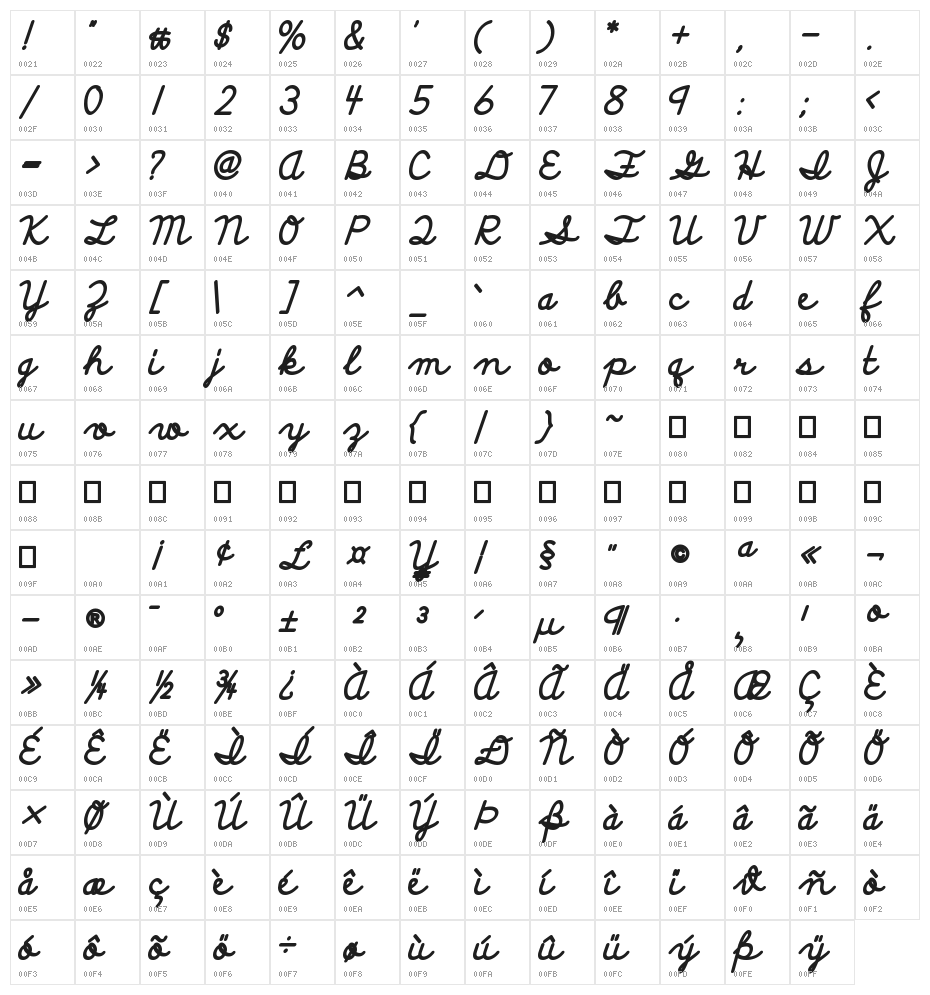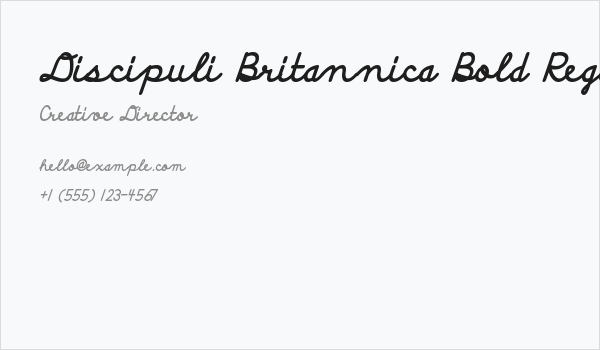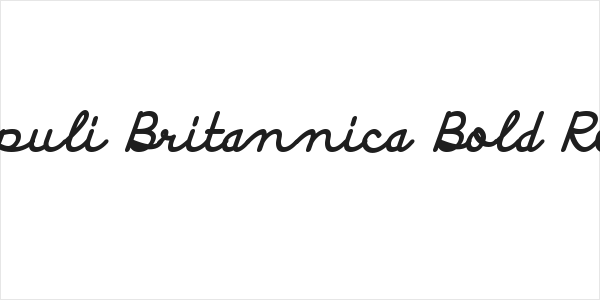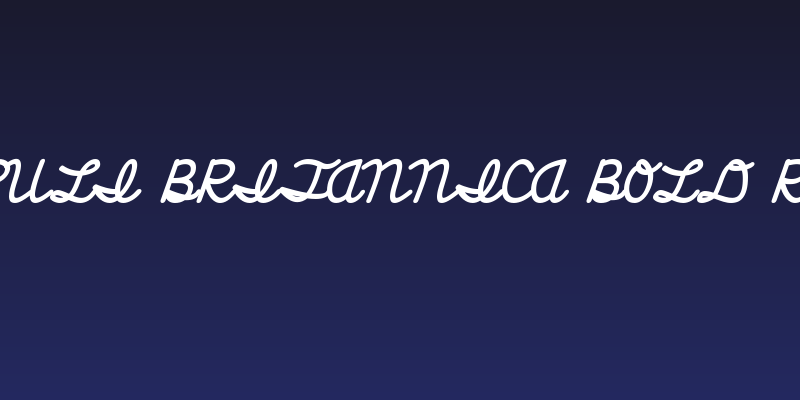
Discipuli Britannica Bold Regular Font
Discipuli Britannica Bold Regular Description
This font features a flowing, cursive style with a bold and confident appearance. The letters are interconnected, creating a seamless and elegant script that mimics natural handwriting. The uppercase letters maintain a consistent height, while the lowercase letters have a slight slant, adding to the dynamic and lively feel. The numerals are clear and bold, matching the overall style of the font. Special characters are included, maintaining the same fluidity and boldness. This font is well-suited for projects that require a personal touch, such as invitations, greeting cards, or branding materials.
Use CaseLogos, Headlines, Invitations
Proposed ProjectsIdeal for invitations, greeting cards, branding, and any project needing a personal, handwritten touch.